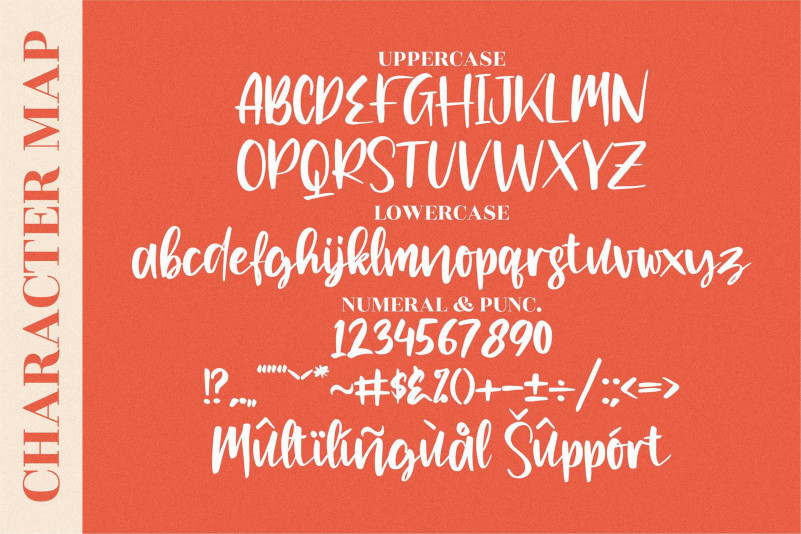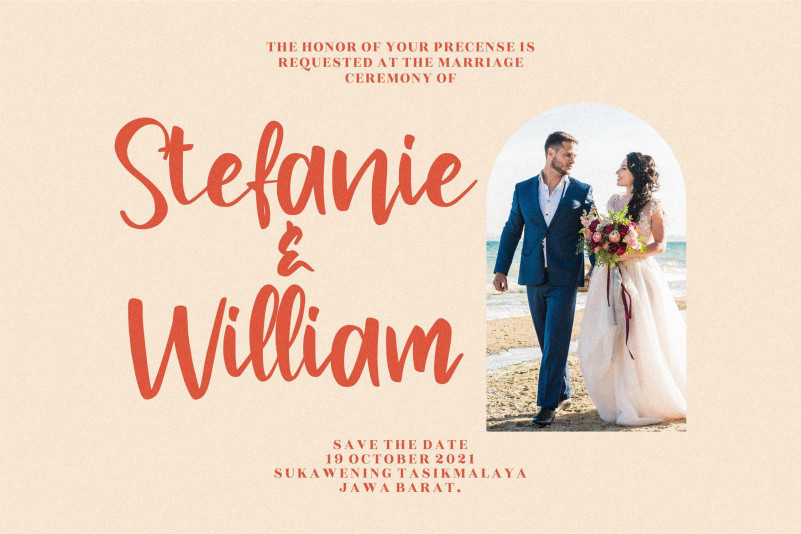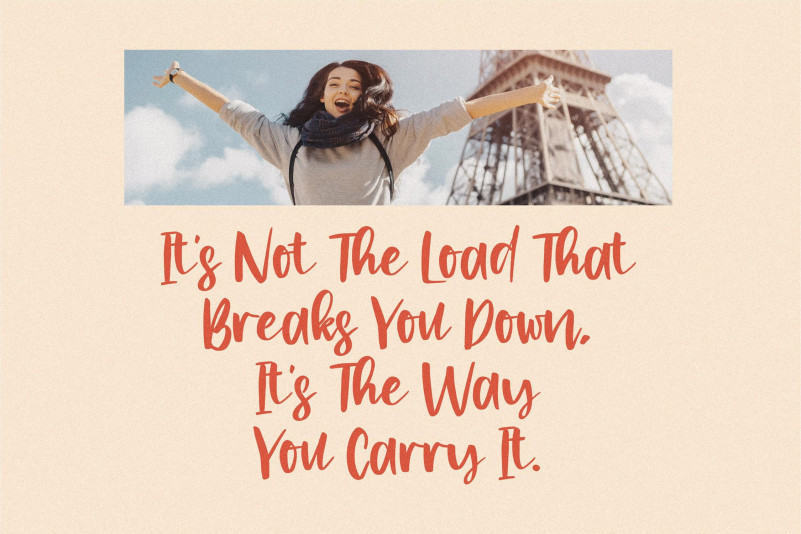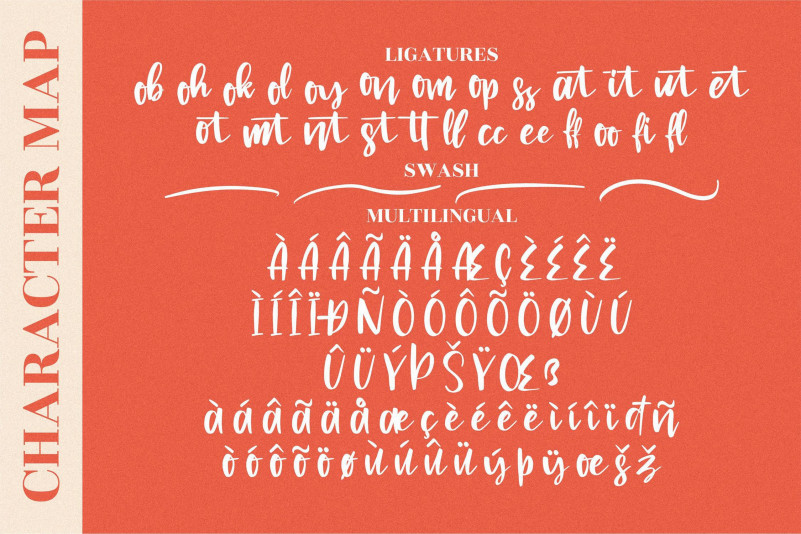
Clarlissa Dawson Font
Clarlissa Dawson Script Font
This is a lovely script font. This font is neatly crafted and highly detailed. Whatever the topic, this font will be a wonderful asset to your font library, as it has the potential to enhance any creation.
Clarlissa Dawson Script Font is PUA encoded which means you can access all of the glyphs and swashes with ease!